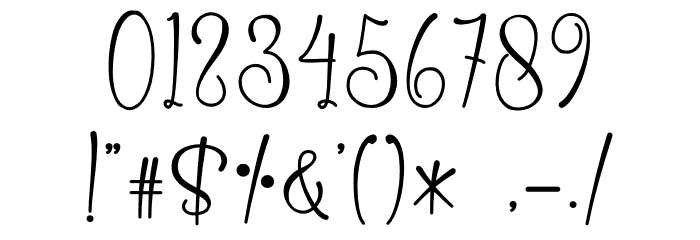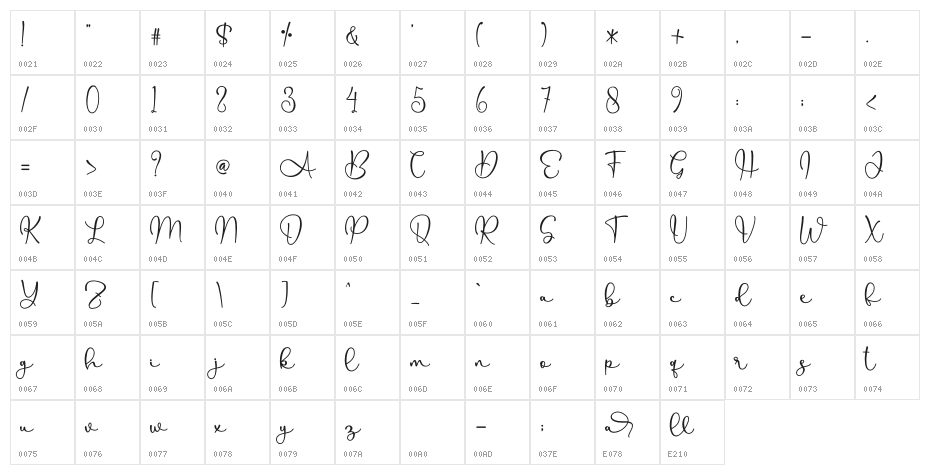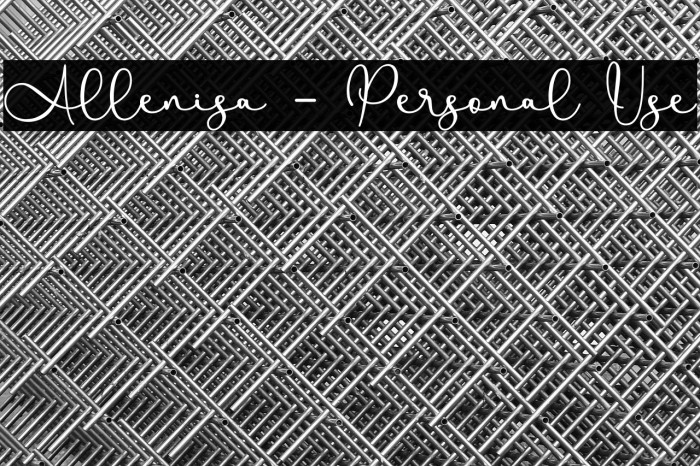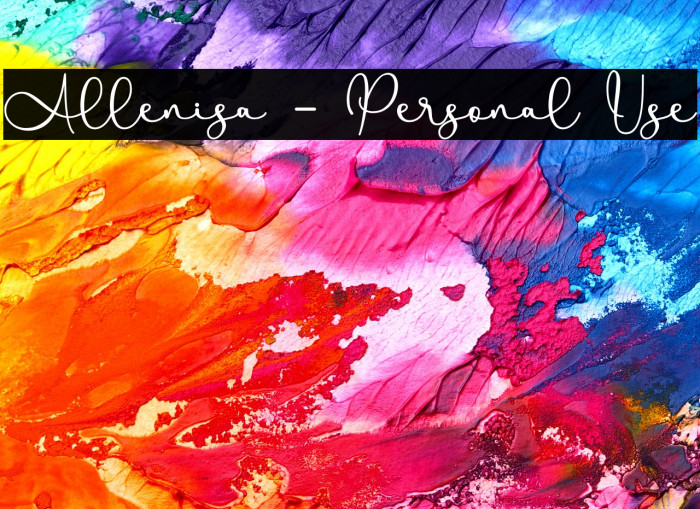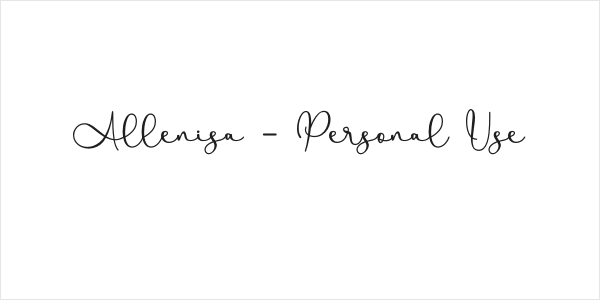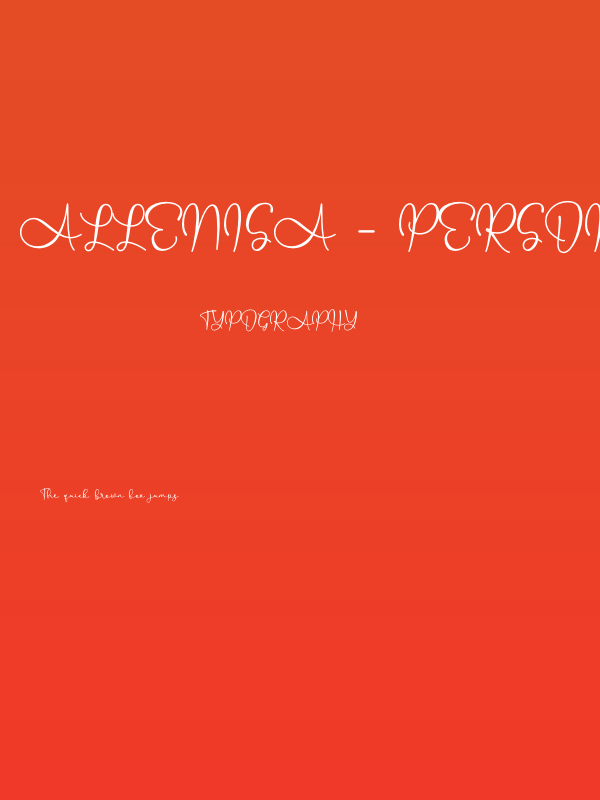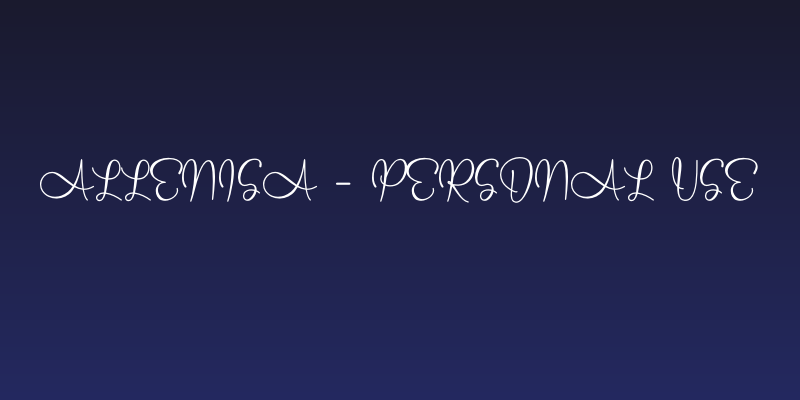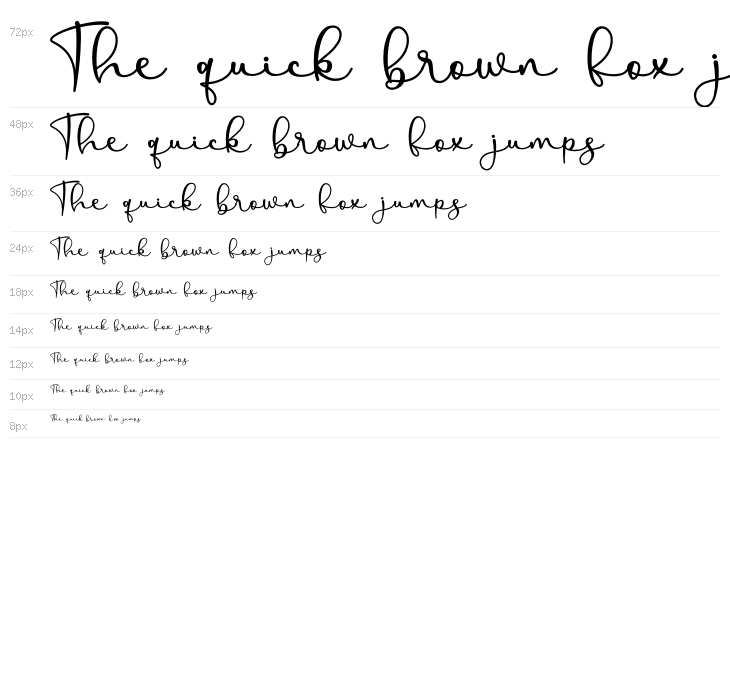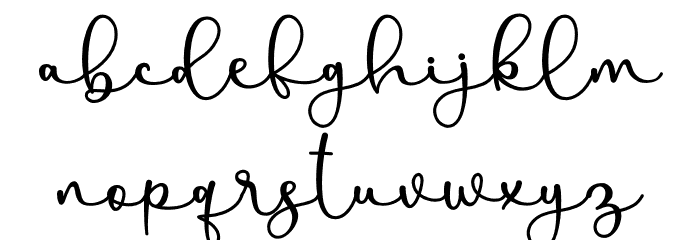
Allenisa - Personal Use Font
Allenisa - Personal Use Description
This font features a playful and elegant script style with a handwritten appearance. The uppercase letters are characterized by their flowing, interconnected strokes, creating a sense of movement and fluidity. The lowercase letters maintain a consistent style, with rounded forms and smooth curves that enhance readability. The numerals are distinct and clear, matching the overall aesthetic with their rounded and slightly whimsical design. Special characters are thoughtfully crafted to blend seamlessly with the alphabet, ensuring versatility in various design contexts. The font's overall appearance is both charming and sophisticated, making it suitable for a range of creative projects.
| Proposed Projects | Ideal for wedding invitations, greeting cards, branding, and social media graphics. |